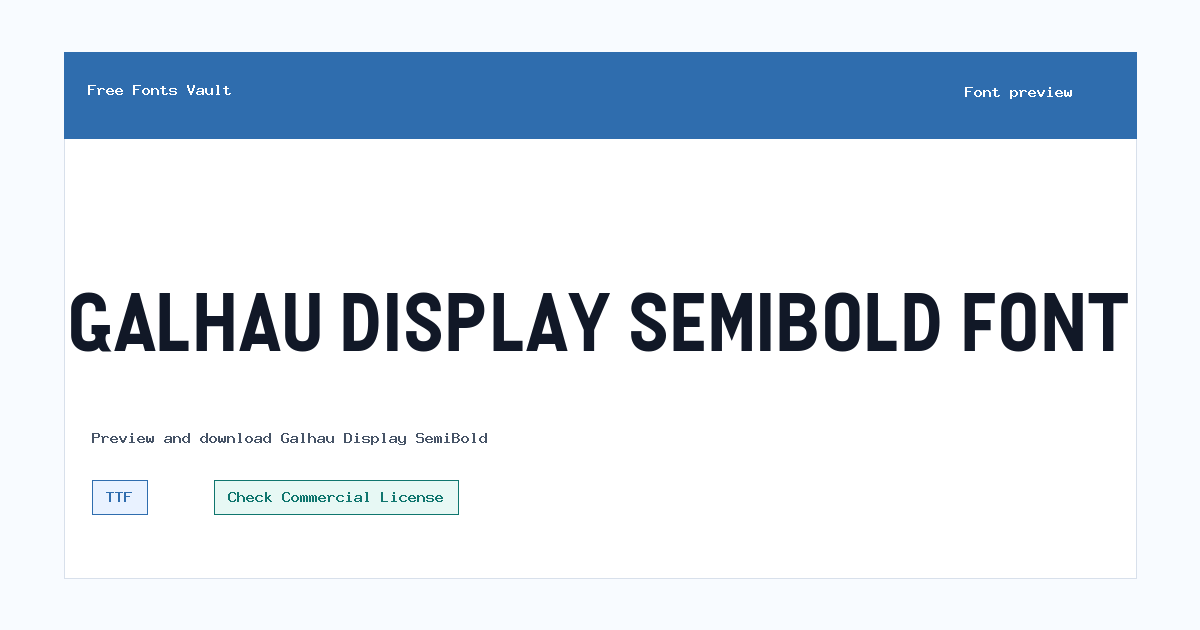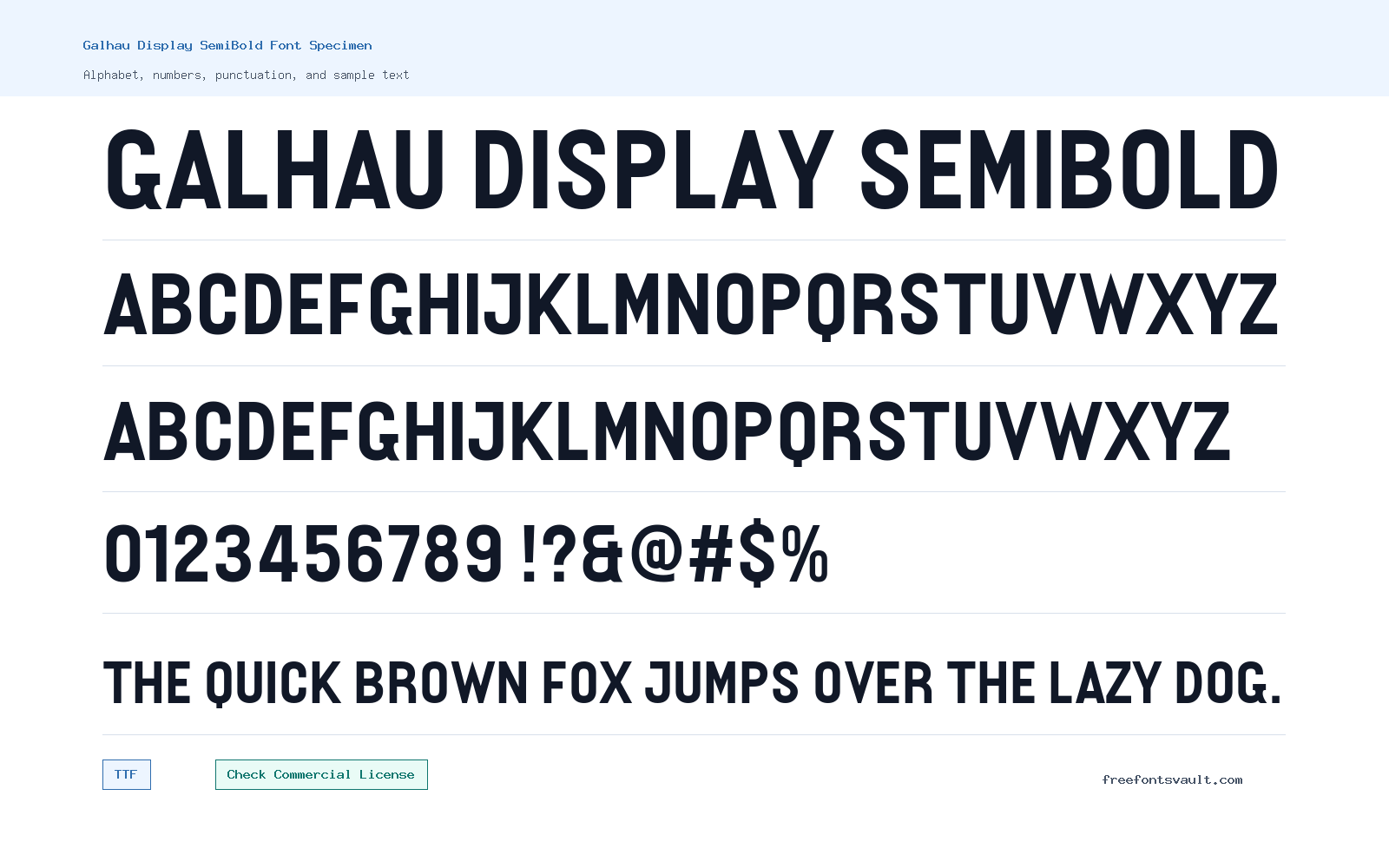
Galhau Display SemiBold
Galhau Display SemiBold font.
Galhau Display SemiBold is a display typeface with a confident semi-bold weight, made for short text that needs more presence than a standard body font.
About Galhau Display SemiBold
Galhau Display SemiBold works best when the text is meant to be noticed quickly. Its semi-bold weight gives words a strong shape without moving into an extra-heavy look, so it can suit headings, poster lines, cover text, social graphics, labels, and other short display settings. The download includes TTF font files, including a slanted version for layouts that need a more angled or energetic companion style.
Use the preview tool to test the exact words you plan to set, especially if your design uses tight spacing, all caps, or a mix of short and long lines. Display fonts often look strongest in titles and compact phrases, while longer paragraphs may need a simpler text face beside them. Try pairing Galhau Display SemiBold with a clean sans serif or readable serif for body copy, then keep this font for the parts of the design that need emphasis.
- Semi-bold display weight for strong titles and short text
- Headlines, posters, covers, and social media graphics
- Logos, labels, packaging mockups, and branding tests
Start with larger sizes and short phrases. Check spacing in the preview before downloading, and use the slanted file only when the angled style improves the layout rather than making the text harder to read. SemiBold is useful when the regular cut feels too quiet but a full bold weight feels too forceful. Try it for section titles, compact posters, packaging labels, and short brand-style phrases. Keep supporting copy in a calmer companion font so the display style can do the visual work without making the whole design feel crowded. For a cleaner result, preview the real headline at desktop and mobile sizes, then adjust spacing only after the wording is final. It is also a sensible choice for menus, badge text, and compact UI labels where the letters need presence without looking oversized.
What type of font is Galhau Display SemiBold?
It is a display font in a semi-bold weight, best suited for headings, titles, posters, and other short text settings.
Is this font good for body text?
It is better for display use than long reading text. For paragraphs, pair it with a simpler, highly readable font.